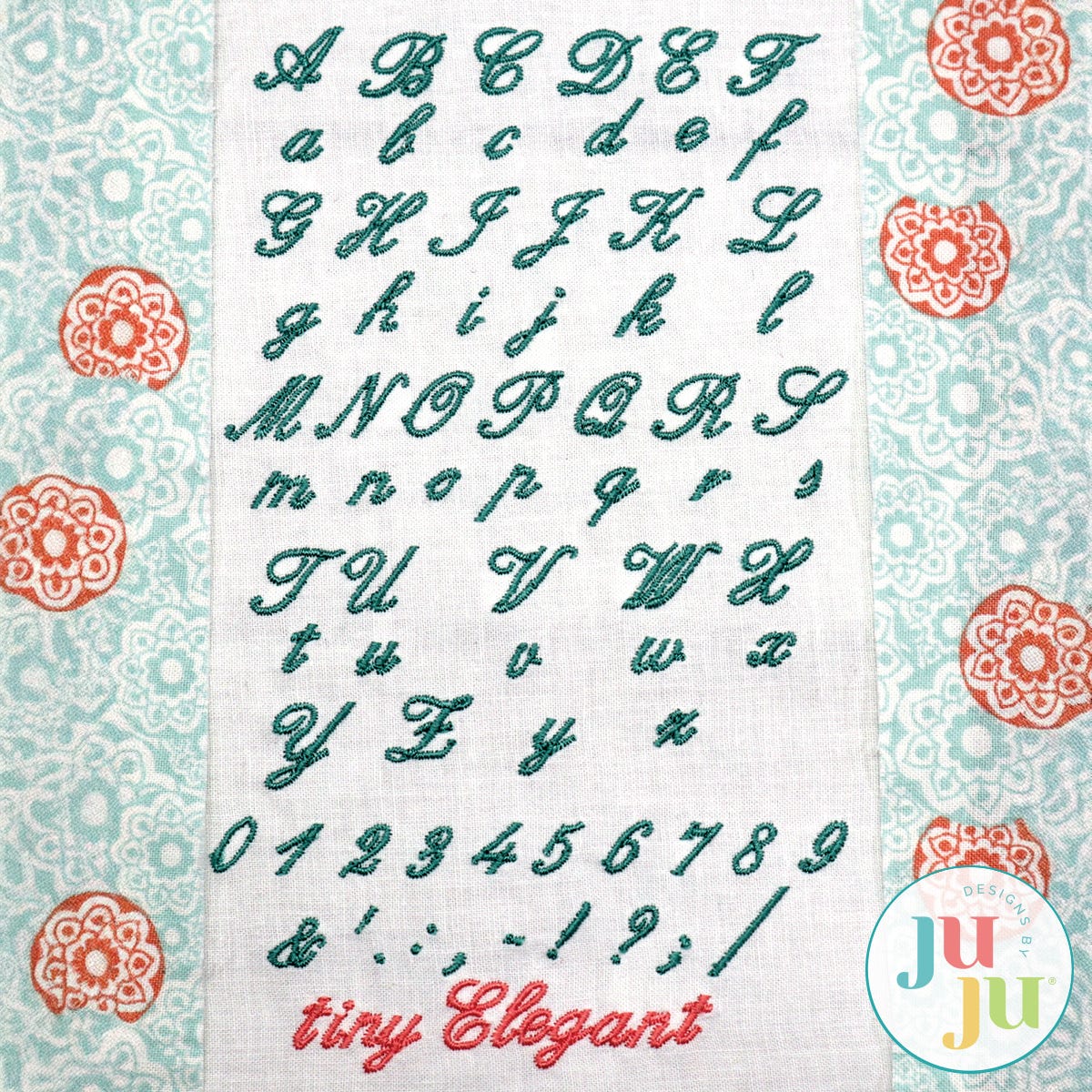
While we call this font tiny (it is under 1/2"), please note that it stands at approximately 3/8" and is the tallest amongst our tiny fonts. This font has been entirely digitized by hand, making sure that letters connect easily. As its name implies, this is a very elegant font. Good for use on labels and pesonalizing of handkerchiefs etc. Unlike our other tiny fonts, this font can be stitched with regular 40 wt embroidery thread and a size 75/11 needle.